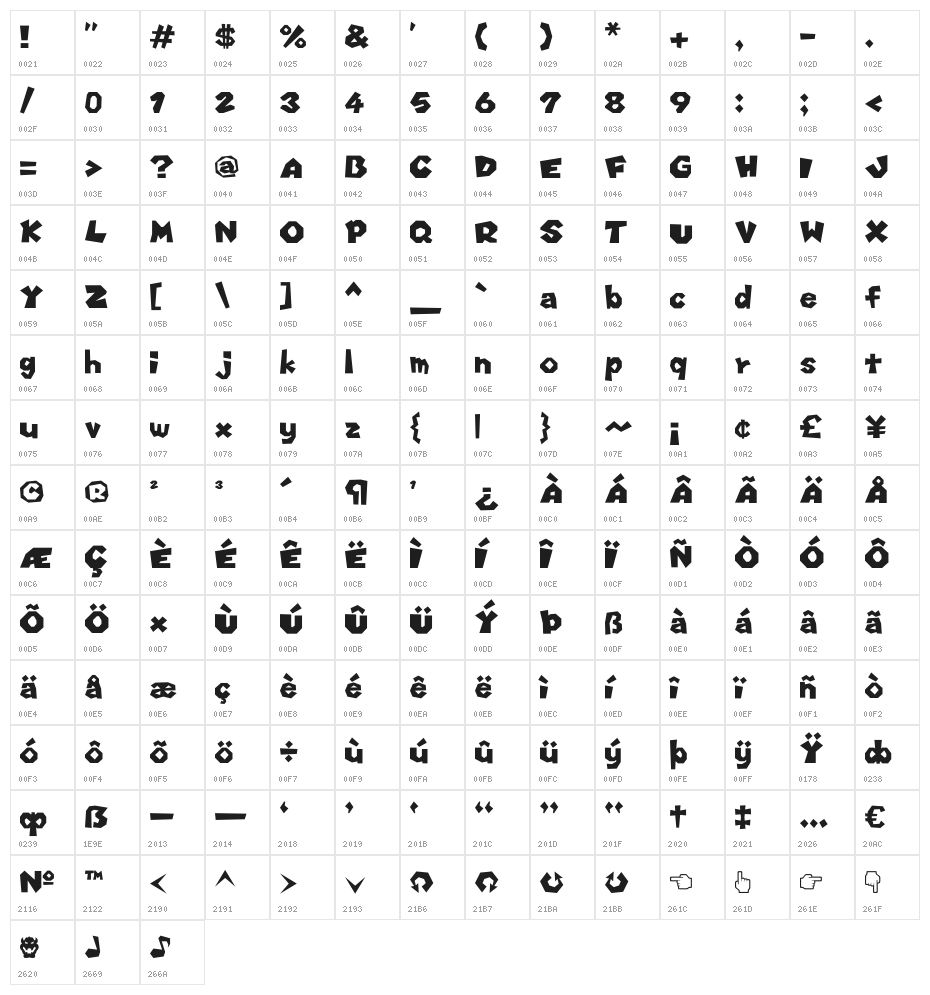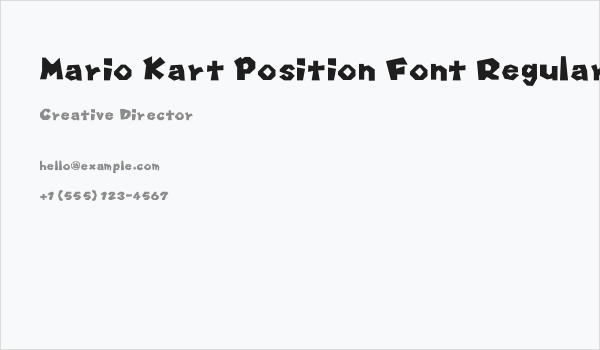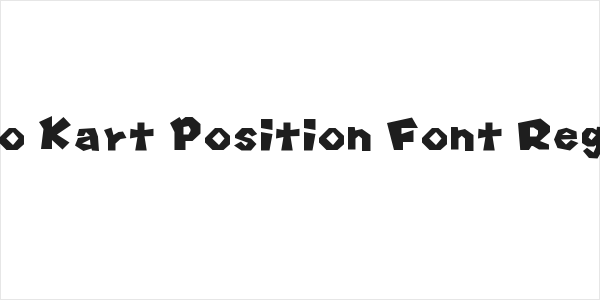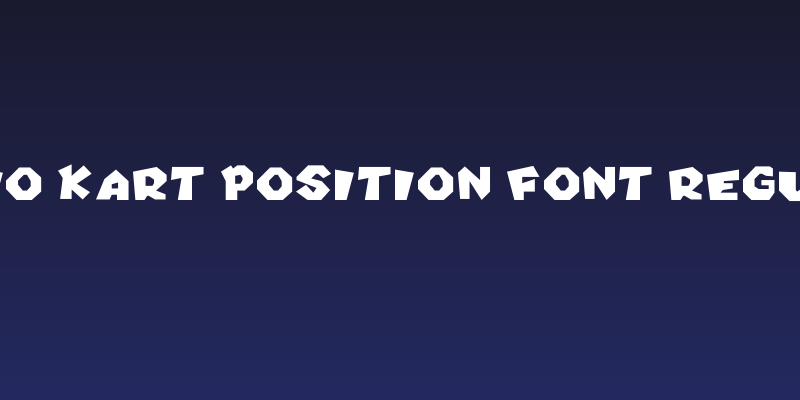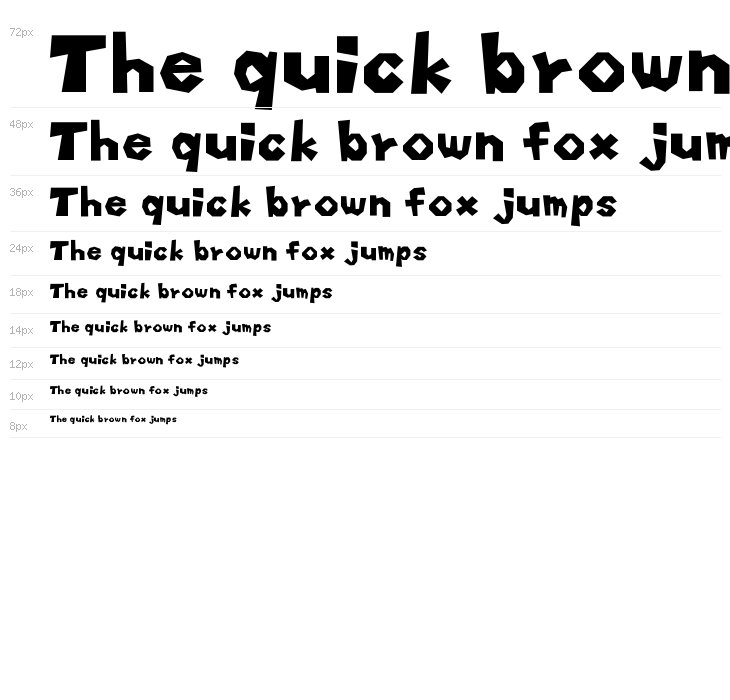
Mario Kart Position Font Regular Font
Mario Kart Position Font Regular Description
This font features a bold and playful design with a distinct, angular style. Each character is crafted with sharp edges and irregular shapes, giving it a dynamic and energetic feel. The uppercase and lowercase letters maintain a consistent style, with the uppercase being slightly more pronounced. Numbers and special characters follow the same design principles, ensuring uniformity across all glyphs. The font's unique appearance makes it stand out, ideal for projects that require a fun and eye-catching typeface.
Overall StylePlayful, Energetic, Modern
Proposed ProjectsPerfect for video game graphics, children's book covers, posters, and any project needing a lively and engaging font.